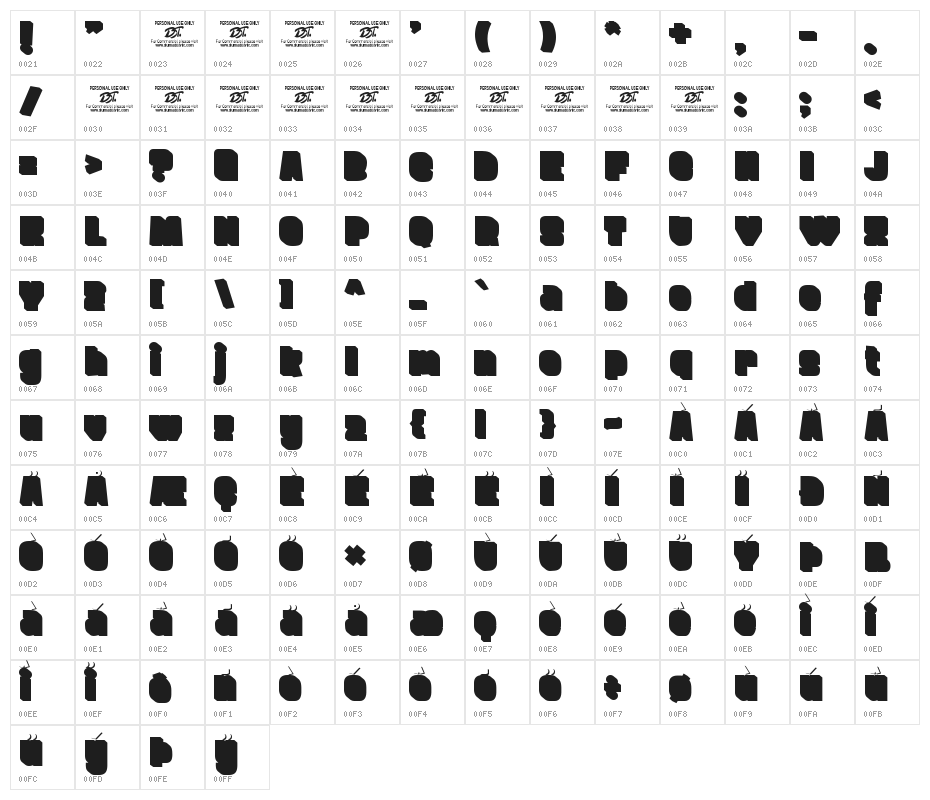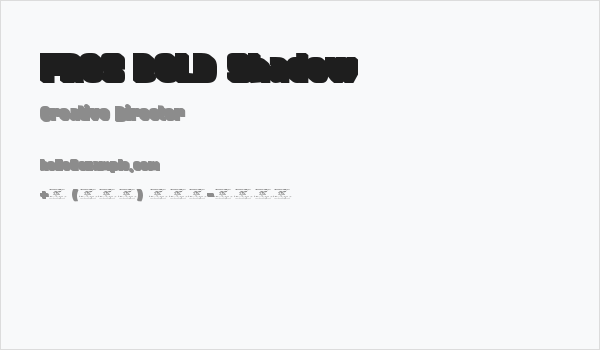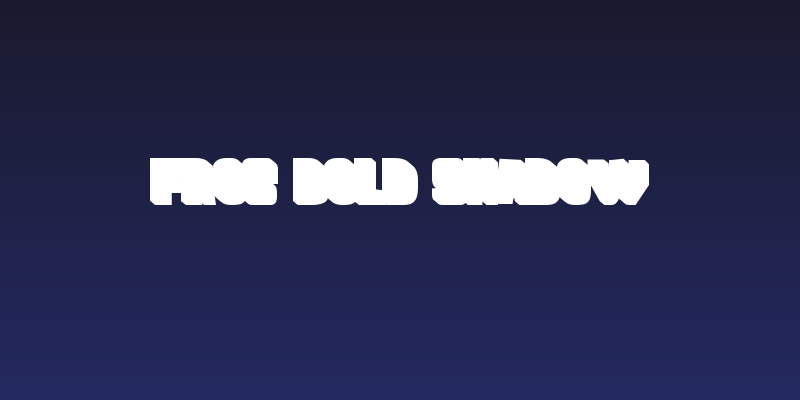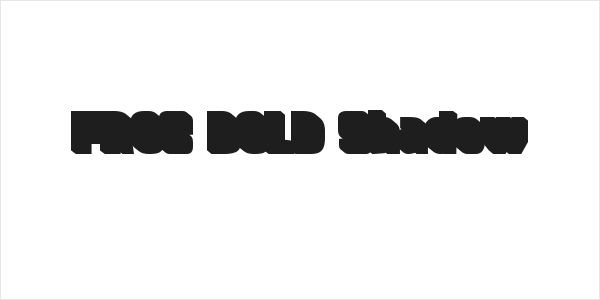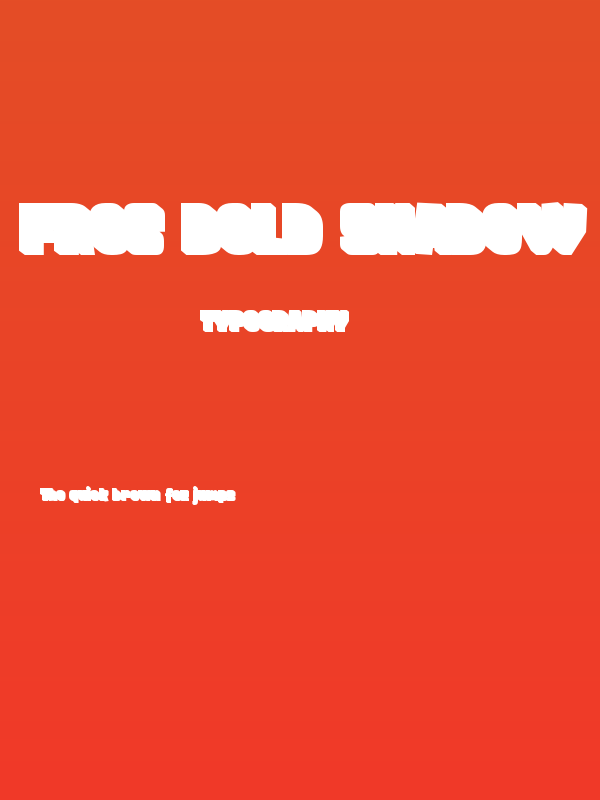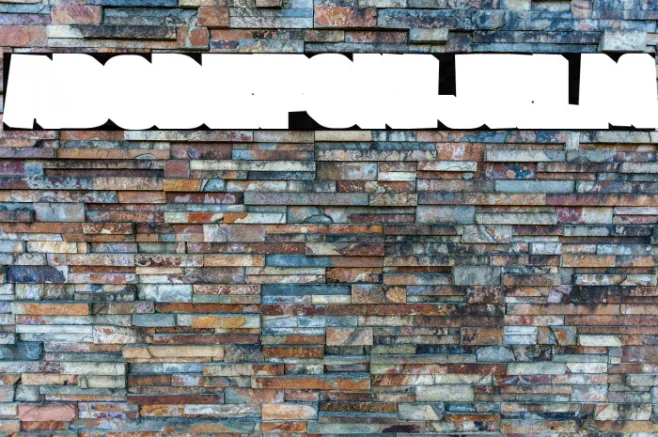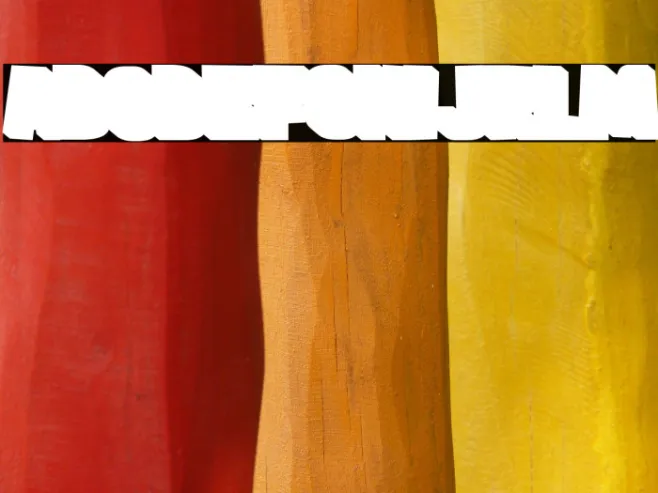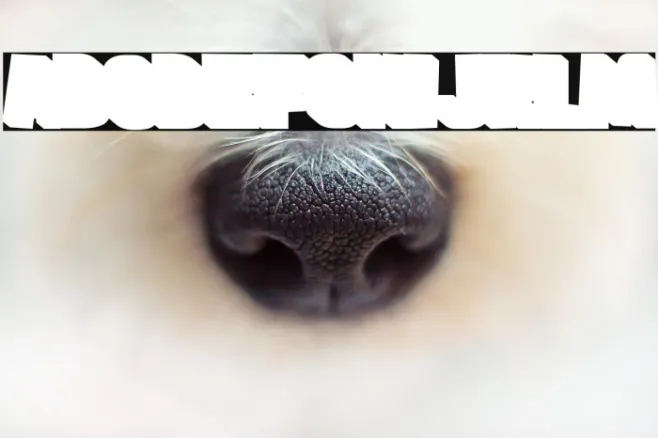
FROS BOLD Shadow Font
FROS BOLD Shadow Description
This bold, shadowed font features thick, blocky letters with a strong presence. The characters are uniformly wide, creating a sense of stability and impact. The shadow effect adds depth, making the text appear three-dimensional. The uppercase and lowercase letters maintain a consistent style, with rounded edges and a playful yet assertive look. The numbers and special characters are designed to match the boldness of the alphabet, ensuring a cohesive appearance across all text elements. This font is ideal for making a statement, with its eye-catching design and bold features.
| Proposed Projects | Ideal for posters, headlines, logos, and any design requiring a strong visual impact. |